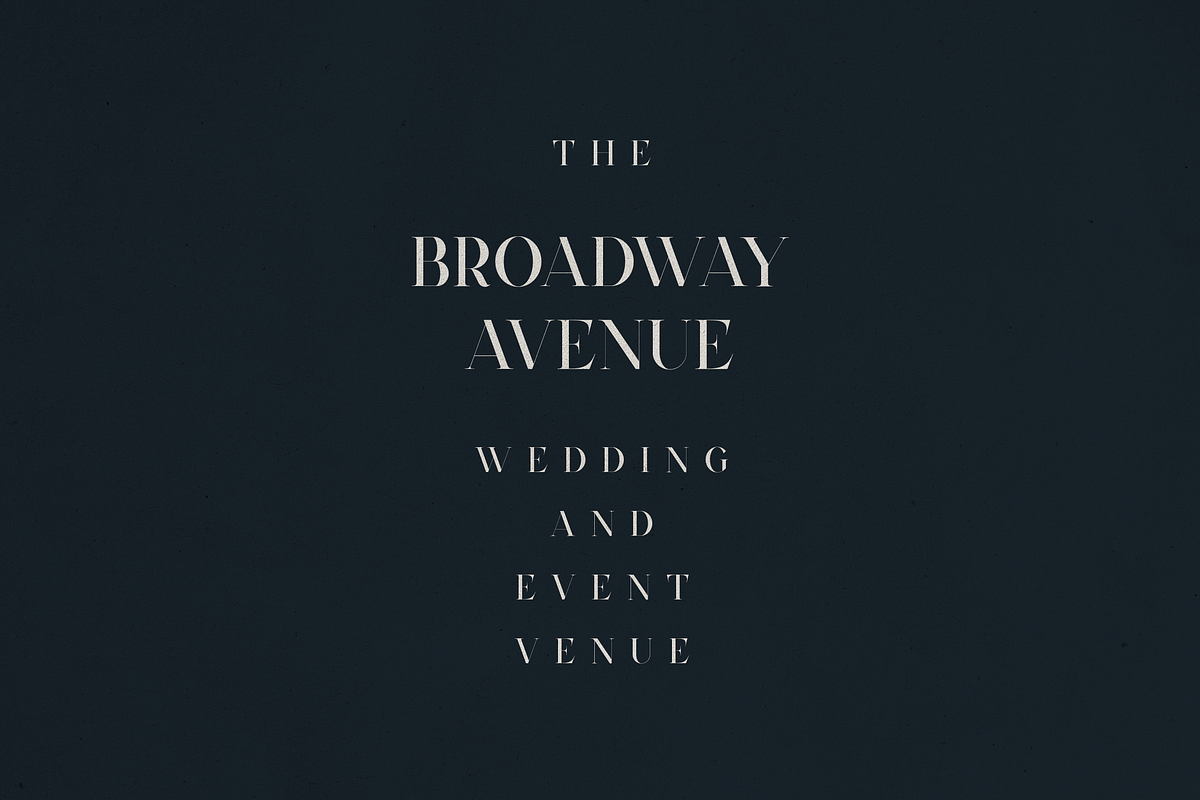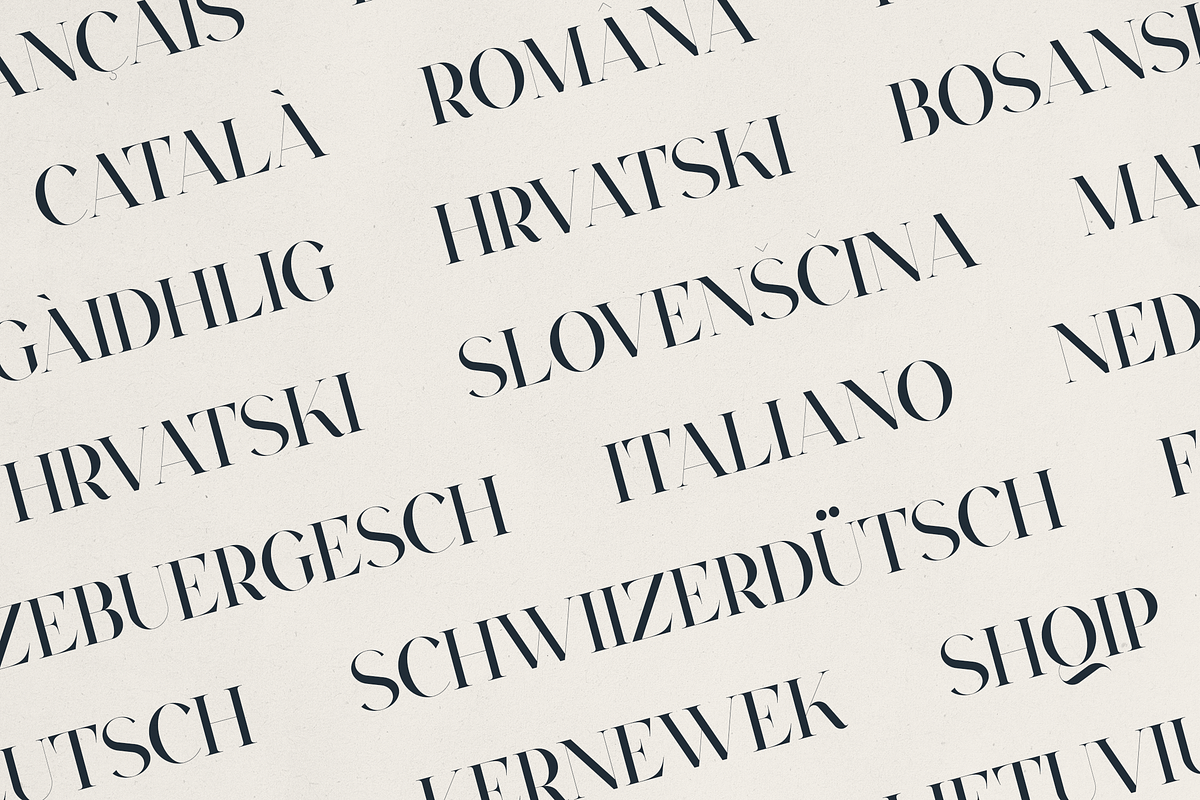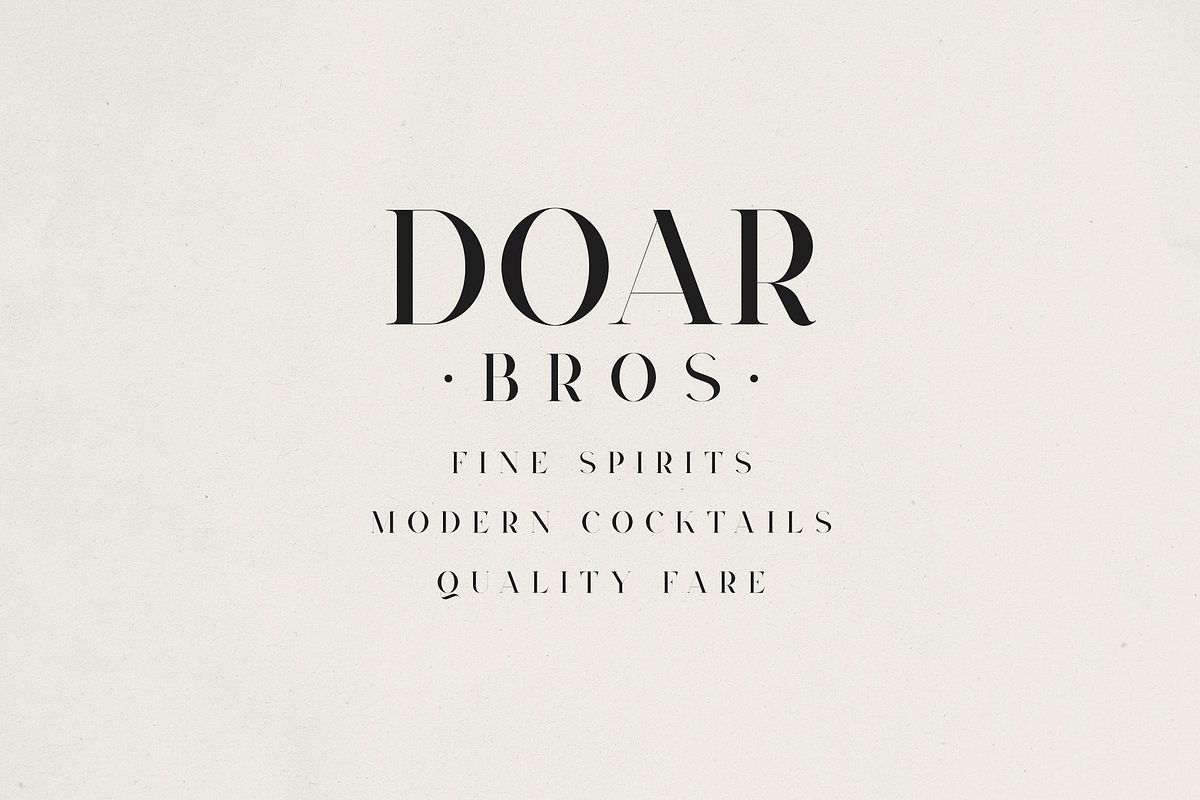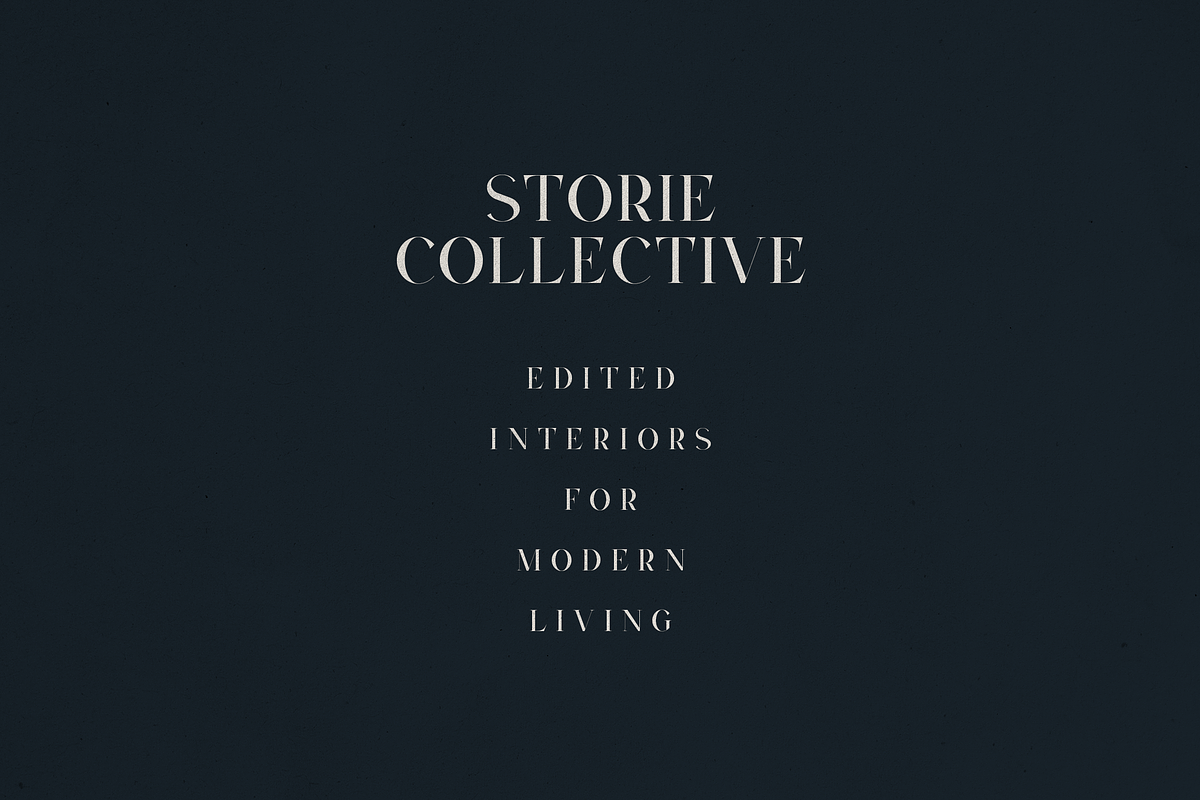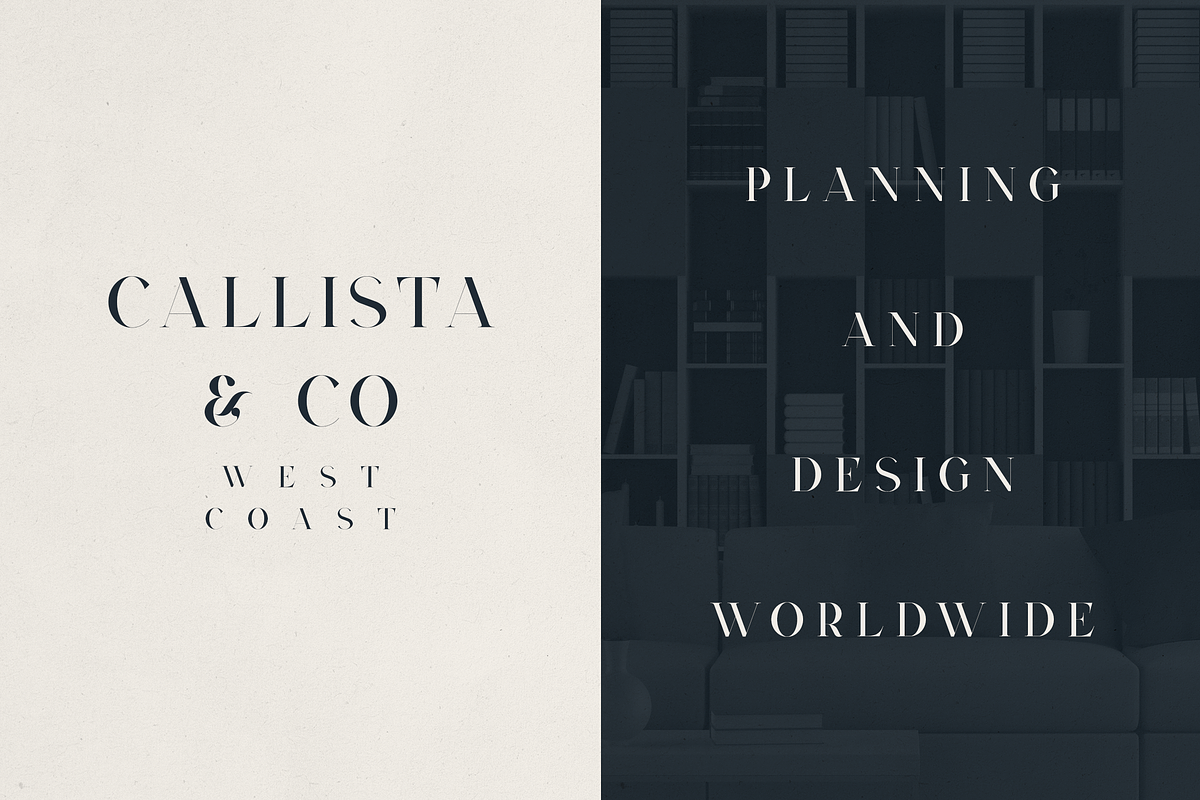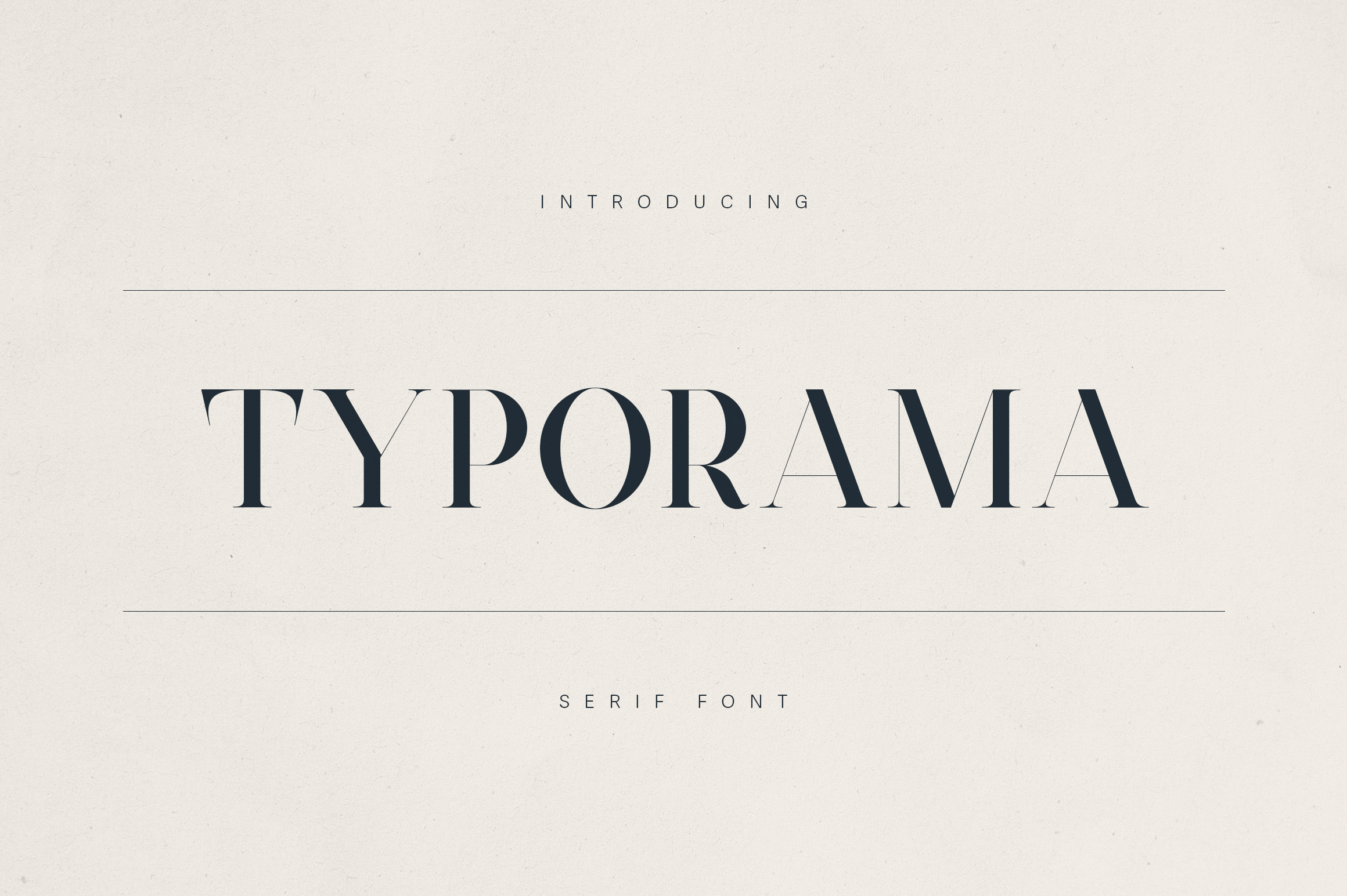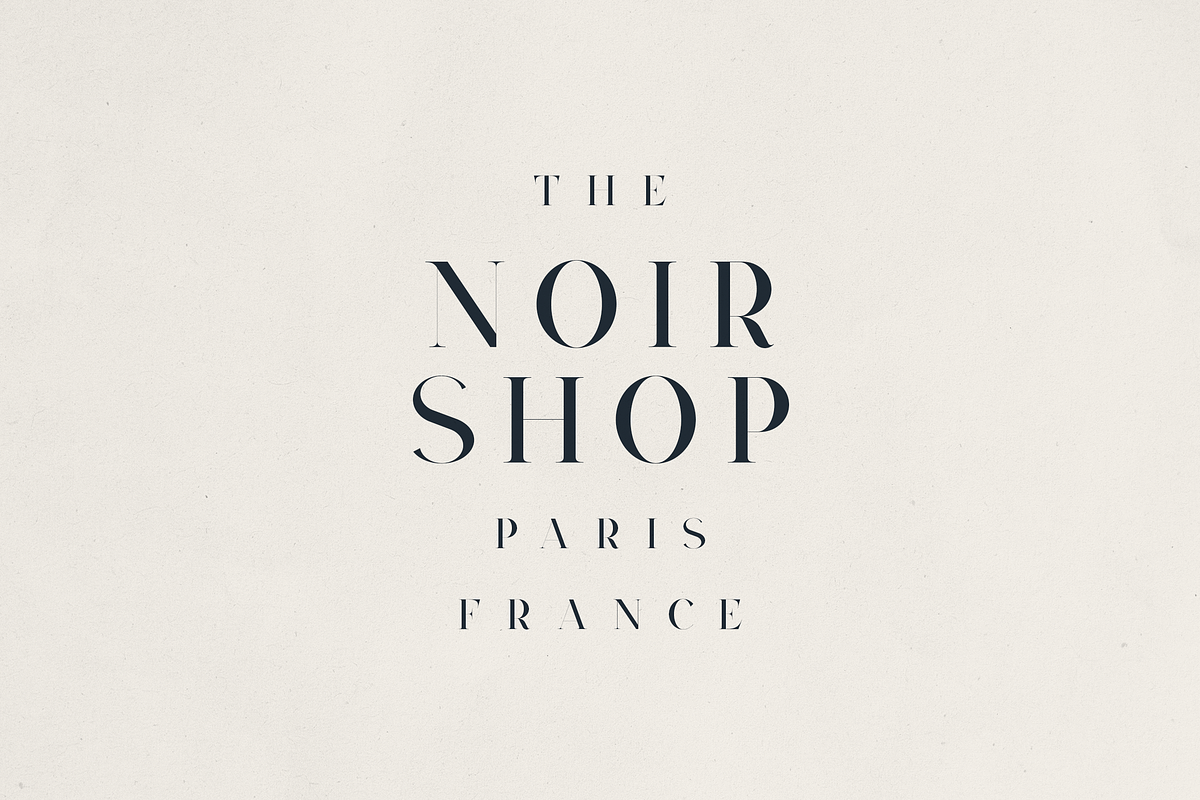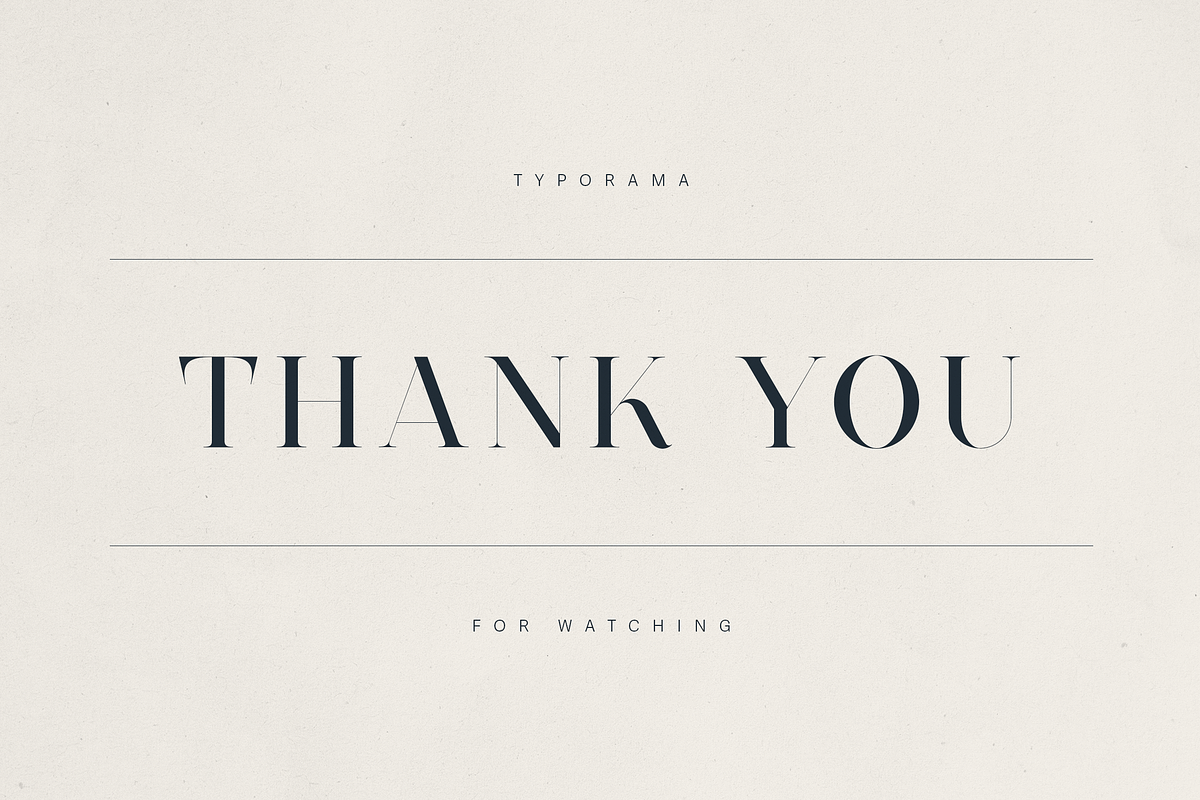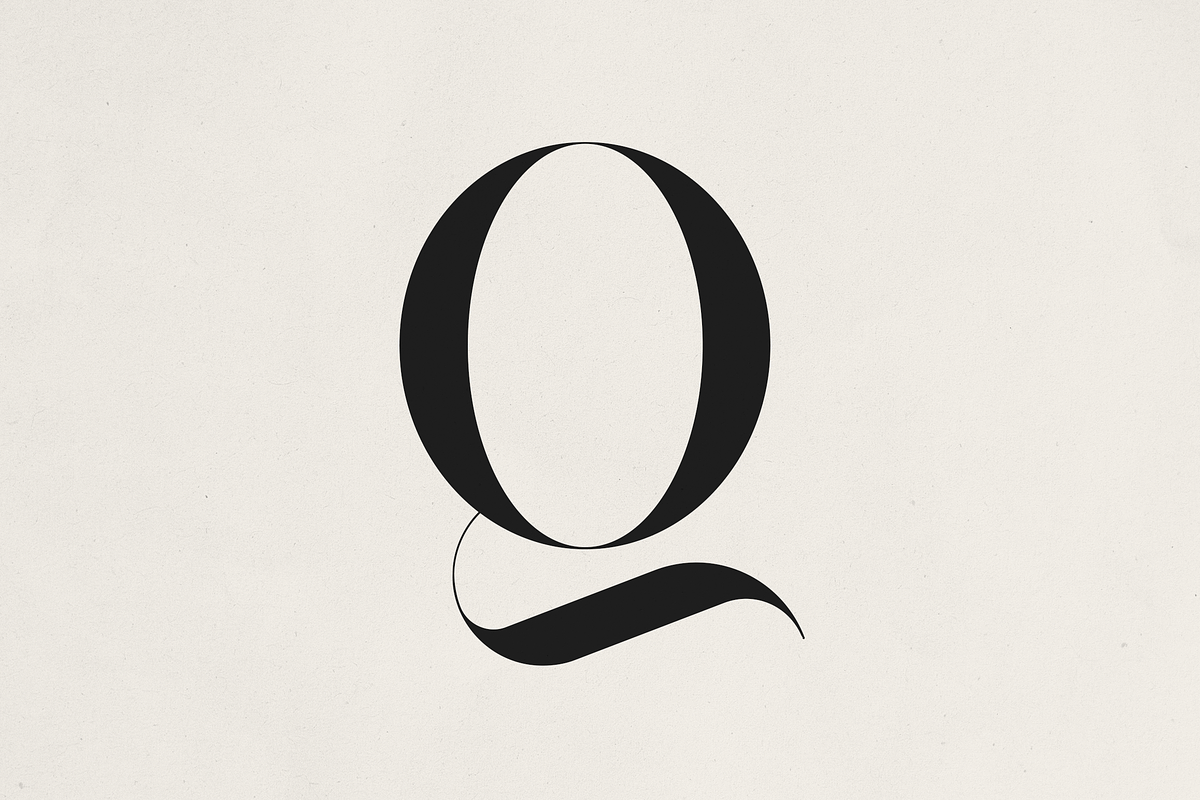
Typorama – Elegant Serif Font
Typorama – Elegant Editorial Serif Font
Typorama is a refined, high-contrast serif font designed for timeless sophistication. With its striking thin serifs, sharp terminals, and modern high-contrast letterforms, Typorama brings a luxurious editorial feel to every project — from brand identities to wedding stationery and lifestyle publications.
Whether you're designing for fashion branding, architecture studios, boutique hotels, or stylish magazines, Typorama captures attention with poise and clarity. Perfectly suited for logo design, high-end packaging, social media graphics, and minimalist layouts.
✦ Font Features
- All uppercase character set
- Elegant high-contrast strokes
- Extensive language support (87+ Latin-based languages)
✦ Ideal for
- Luxury branding & logos
- Editorial & magazine titles
- Interior design studios
- Wedding invitations & event stationery
- High-end packaging and product design
- Fashion lookbooks & website headers